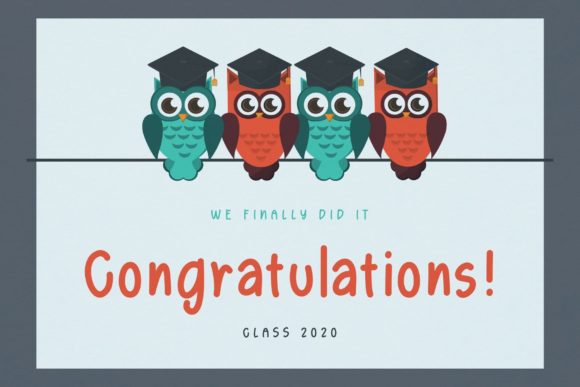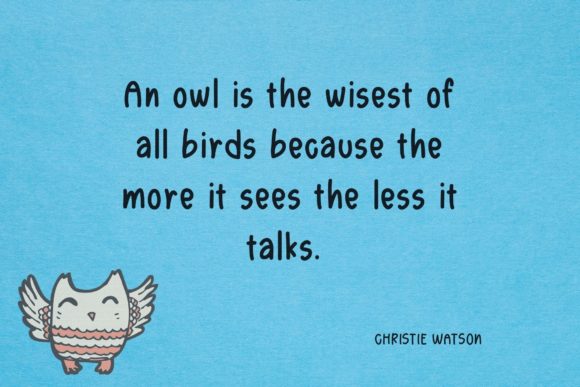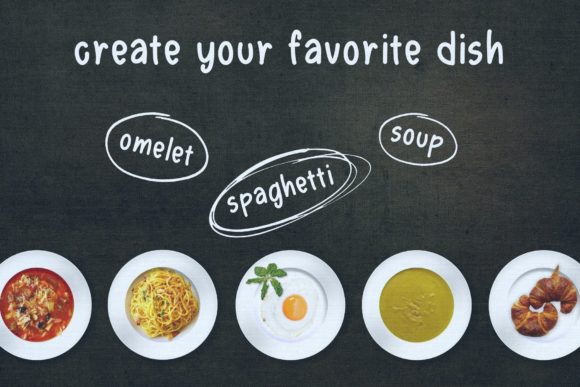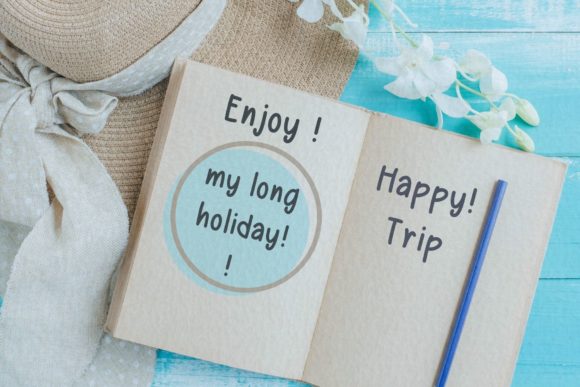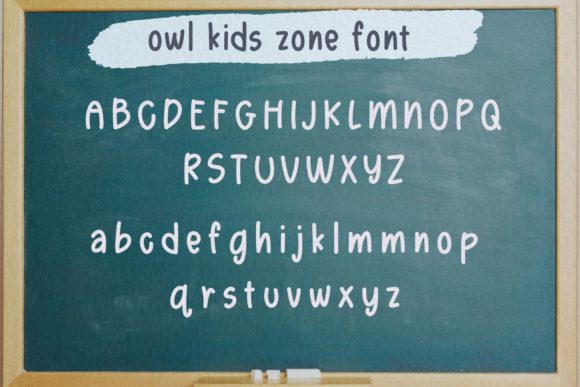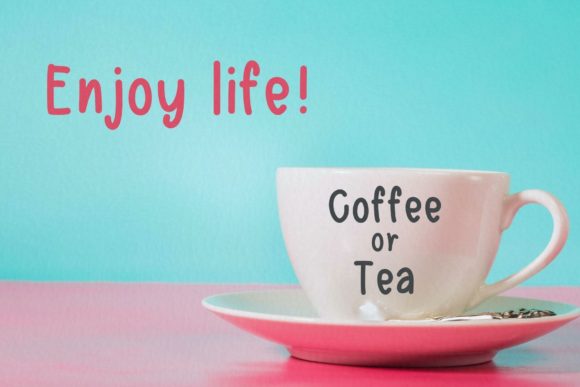
Introduction to Owl Kids Zone Font
Owl Kids Zone is a sweet and quirky handwritten font.
Key Features of Owl Kids Zone Font
Why Choose Owl Kids Zone Font?
Owl Kids Zone Font offers exceptional quality and versatility, making it a valuable addition to your design toolkit. Whether you’re creating for personal projects or commercial use, Owl Kids Zone Font delivers professional results.